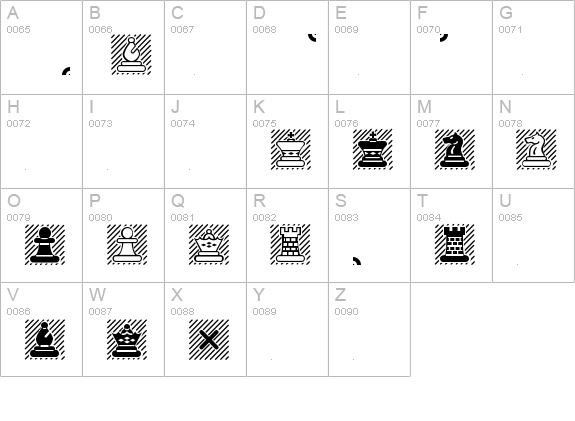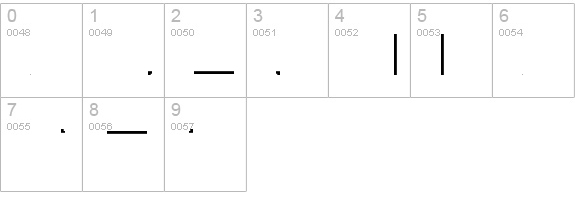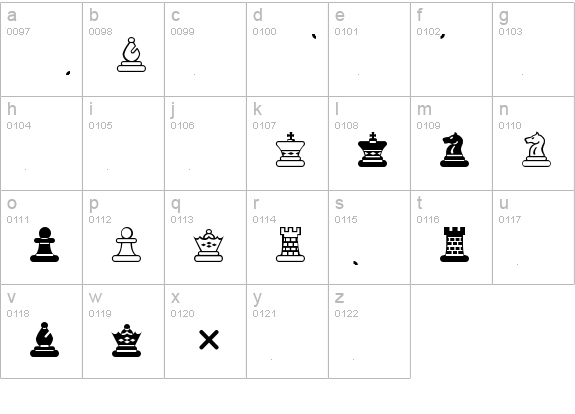
Chess Maya font is a beautifully crafted typeface that combines elegance with a touch of playfulness. With its intricate details and unique design, this font is perfect for adding a touch of sophistication to your projects. Whether you're working on a poster, logo, or any other creative endeavor, Chess Maya font is sure to make a statement. The best part? Chess Maya font is available for free download at FontsMarket.com. Yes, you read that right - you can bring this stunning font into your design toolkit at no cost. So why wait? Download Chess Maya font today and elevate your designs with its charm and versatility.